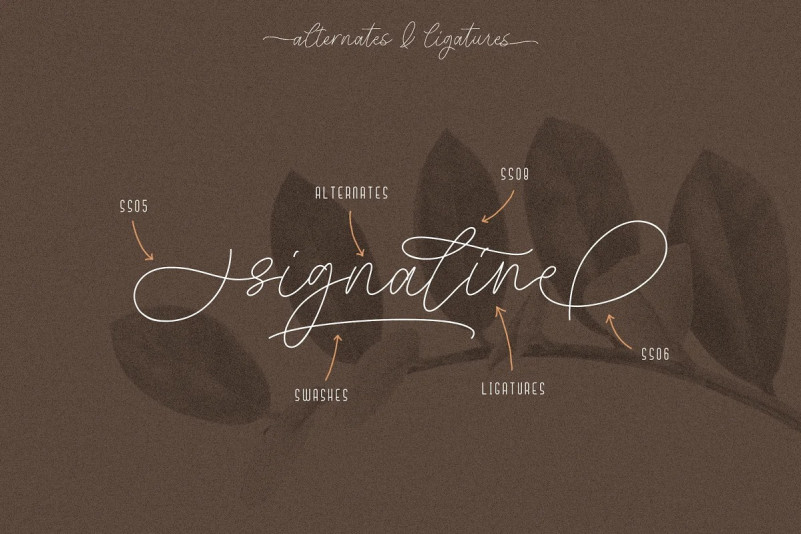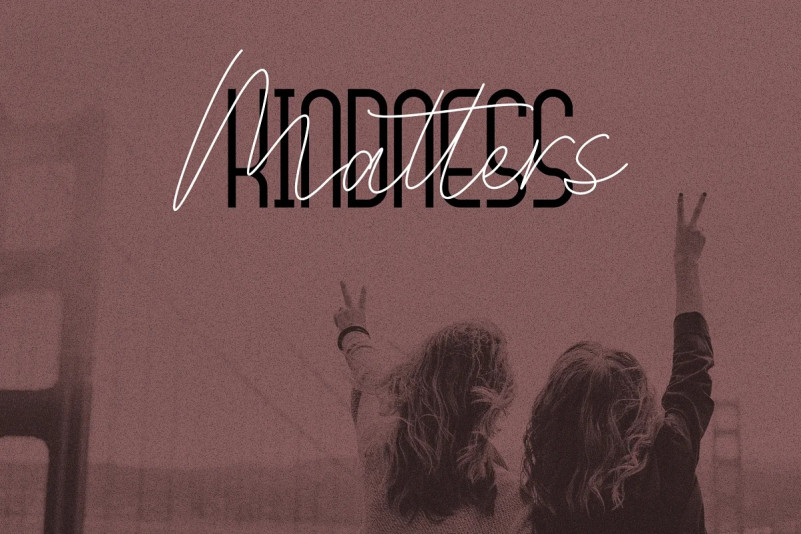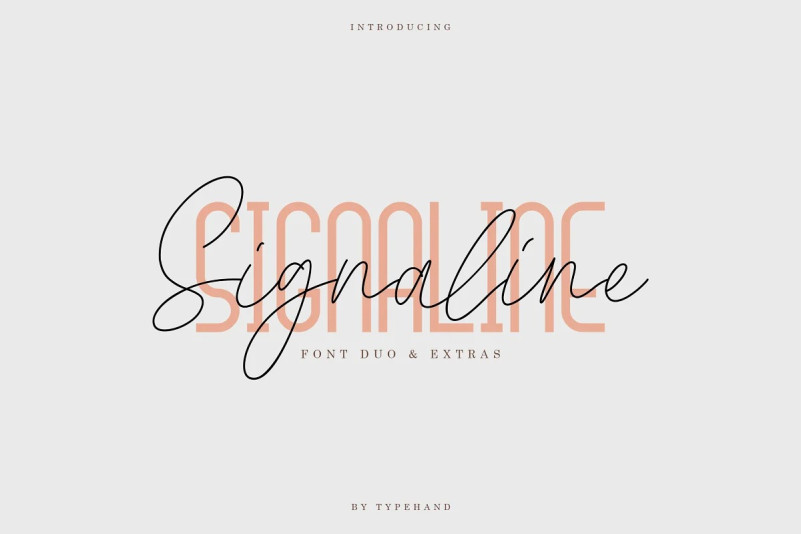
Signaline Font
Signaline Font is handwritten signature script with a natural & stylish flow. This collection of scripts is perfect for personal branding.
Signaline also includes full set of uppercase and lowercase letters, multilingual symbols, numeral, punctuation. This font would be perfect for all types of printing techniques *you can embroidery, laser cut, gold foil etc.